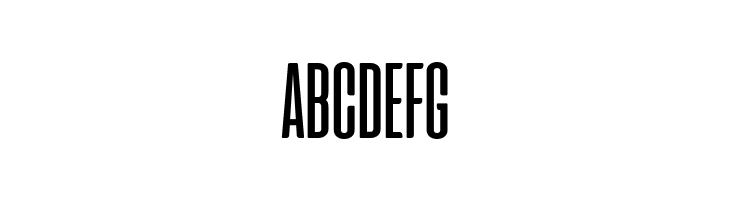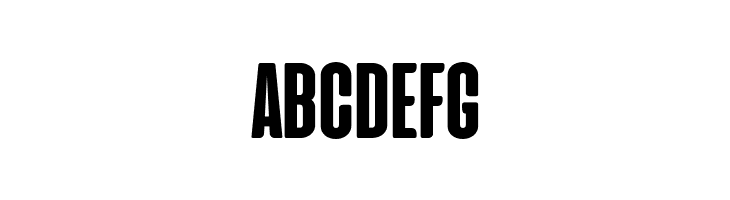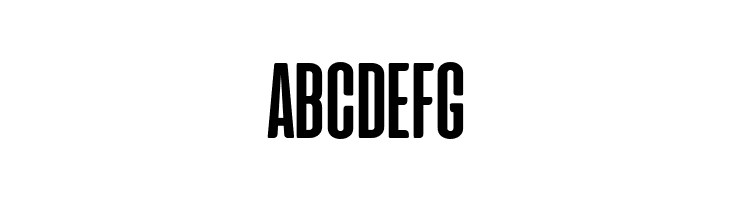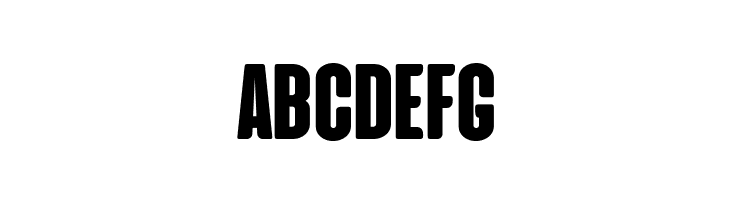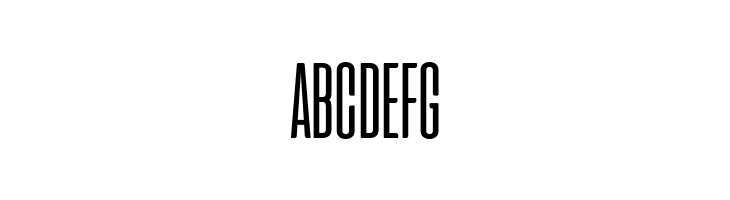
Cinematografica Font
A tall, narrow font with a modern yet vintage style, perfect for impactful headlines.
Cinematografica ExtraBold Font
A bold, impactful typeface with thick, uniform strokes and a modern touch.
Cinematografica Bold Font
A bold, modern font with thick, uniform strokes and a slightly condensed style.
Cinematografica Heavy Font
A bold and heavy font perfect for impactful headlines and designs.
Cinematografica Light Font
A tall, condensed font with a modern and sleek design.
Cinematografica ExtraLight Font
A tall, narrow, and elegant font with an extra light weight, perfect for modern designs.
Cinematografica Thin Font
A thin, elongated font with high contrast and a modern, sophisticated style.